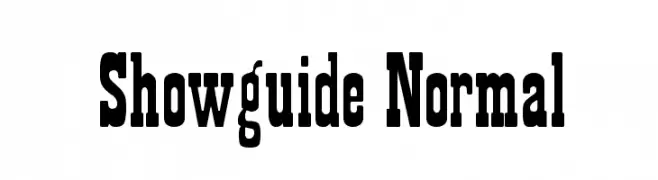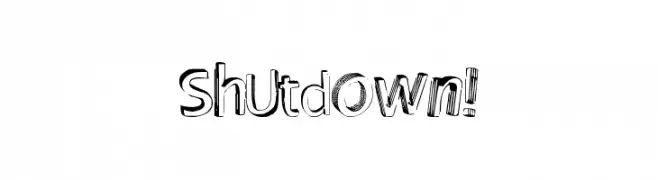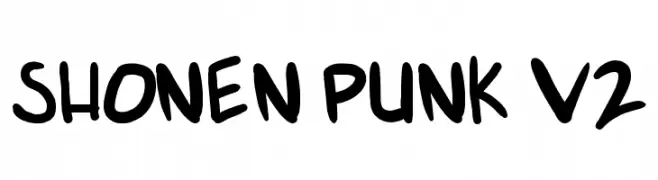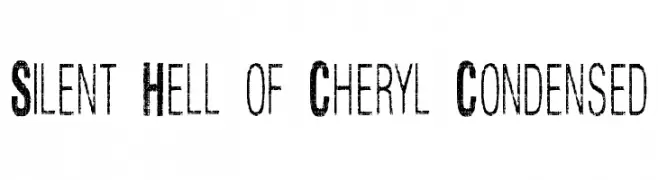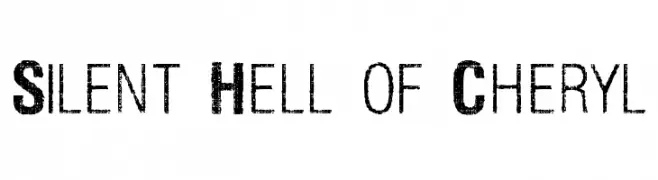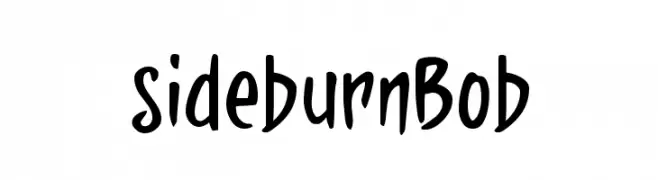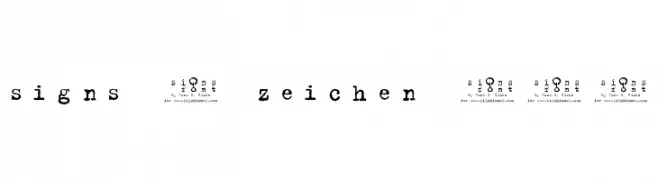
( Fonts by Press Gang Studios - Andeh Pinkard - www.pressgang-studios.com )
A bold, graffiti-inspired font with a playful, hand-drawn style.
( Fonts by Paul Lloyd )
An ornate, decorative font with intricate patterns and vintage flair.
( Fonts by www.lars-manenschijn.nl )
A bold, sketch-style font with a three-dimensional, artistic appearance.
( Fonts by Gyom Seguin - last-soundtrack.daportfolio.com )
A bold, distressed sans-serif font with a grunge texture.
( Fonts by Manfred Klein - manfred-klein.ina-mar.com )
A classic serif font with elegant flourishes and modern touches.
( Fonts by Jens R. Ziehn - www.filmhimmel.com )
A whimsical, hand-drawn font with a mystical, ancient symbol-like appearance.
( Fonts by SDFonts - Ritzy )
A distressed, textured font with a grunge aesthetic.
( Fonts by SDFonts - Ritzy )
A bold, condensed font with a distressed, vintage appearance.